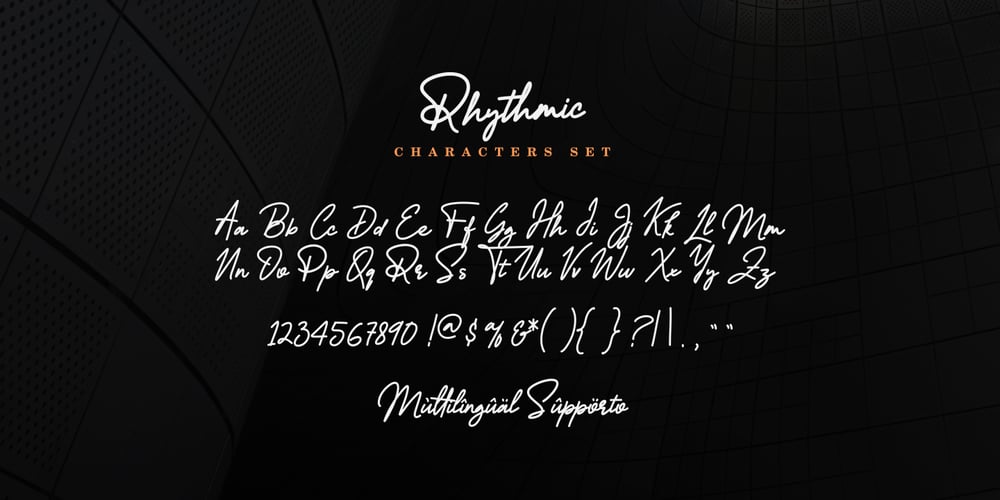
Rhythmic
Rhythmic Font Family was designed by Java Pep and published by Java Pep. Rhythmic contains 1 styles and family package options. Introducing the signature font Rhythmic. This font has 96 ligatures so that the natural feeling of handwriting is more pronounced. Rhythmic is perfect for placing as the main title, for headline, logotype, personal branding in your design project. Package Included – 96 ligatures set – PUA encoded – Multilingual support Thank for using this font. If you have any question don’t hesitate to comment or message me at java.indonesian@yahoo.com.